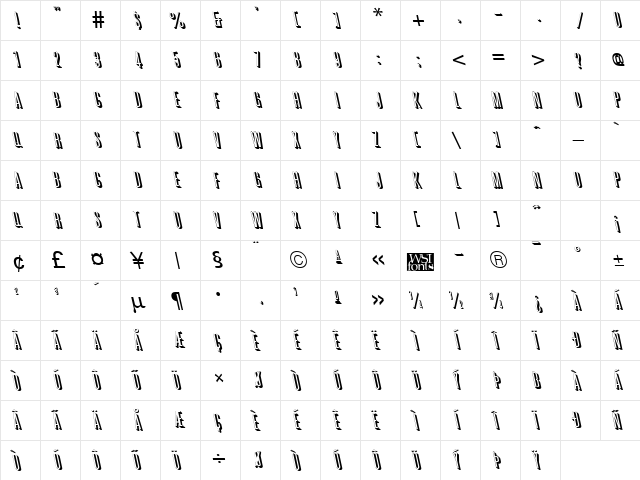
GreatShadowBackslant Regular
Design Context for GreatShadowBackslant Typeface
GreatShadowBackslant is built around its visual character rather than neutral utility — its distinctive forms are designed to make an impression at display sizes.
Font Pairing: Pair with a clean neutral sans-serif for body copy to let GreatShadowBackslant's character lead without overwhelming the composition.
Pro Tip: Use GreatShadowBackslant exclusively at display sizes — it was designed to be seen, not read at length. Let a neutral companion handle body copy.